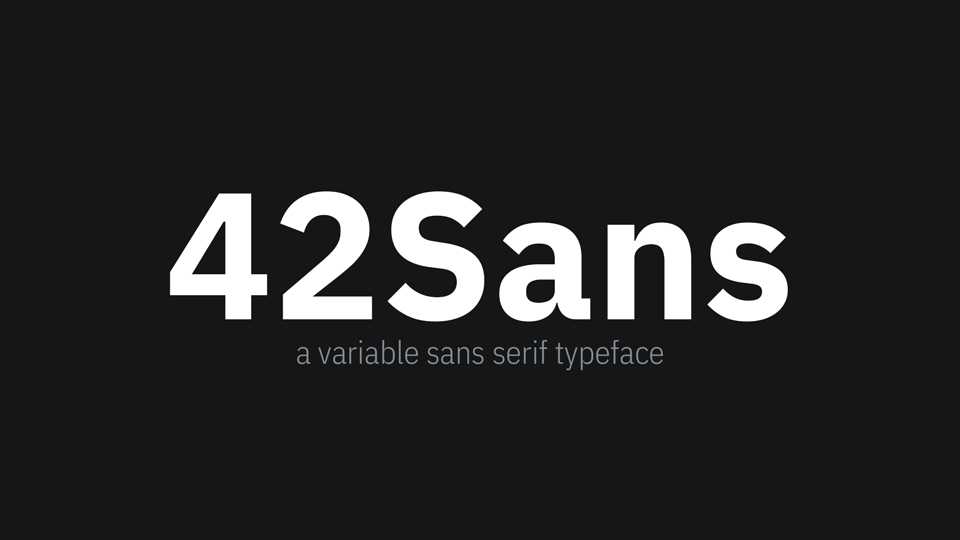
Download 42Sans font, a variable sans serif typeface with a design that was inspired by IBM Plex Sans. 42 Sans has excellent legibility in print, web and mobile interfaces.
Designer: Brickdoc Inc